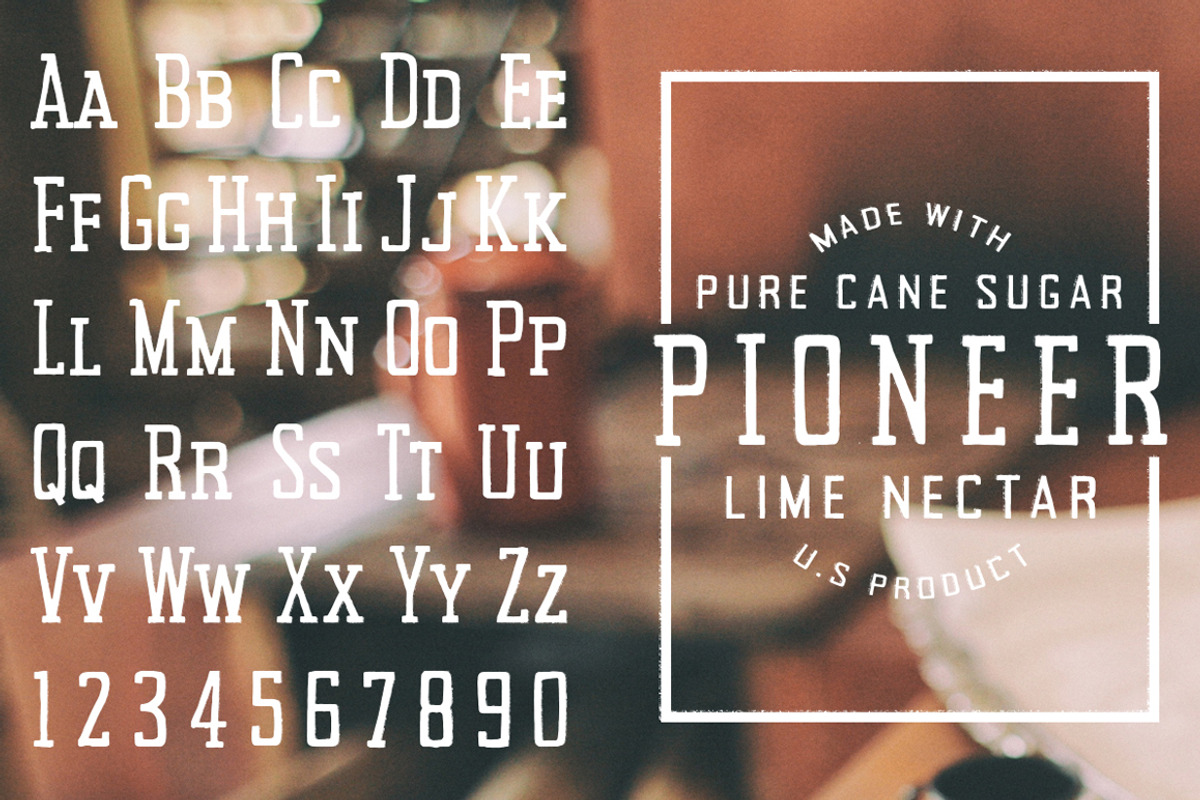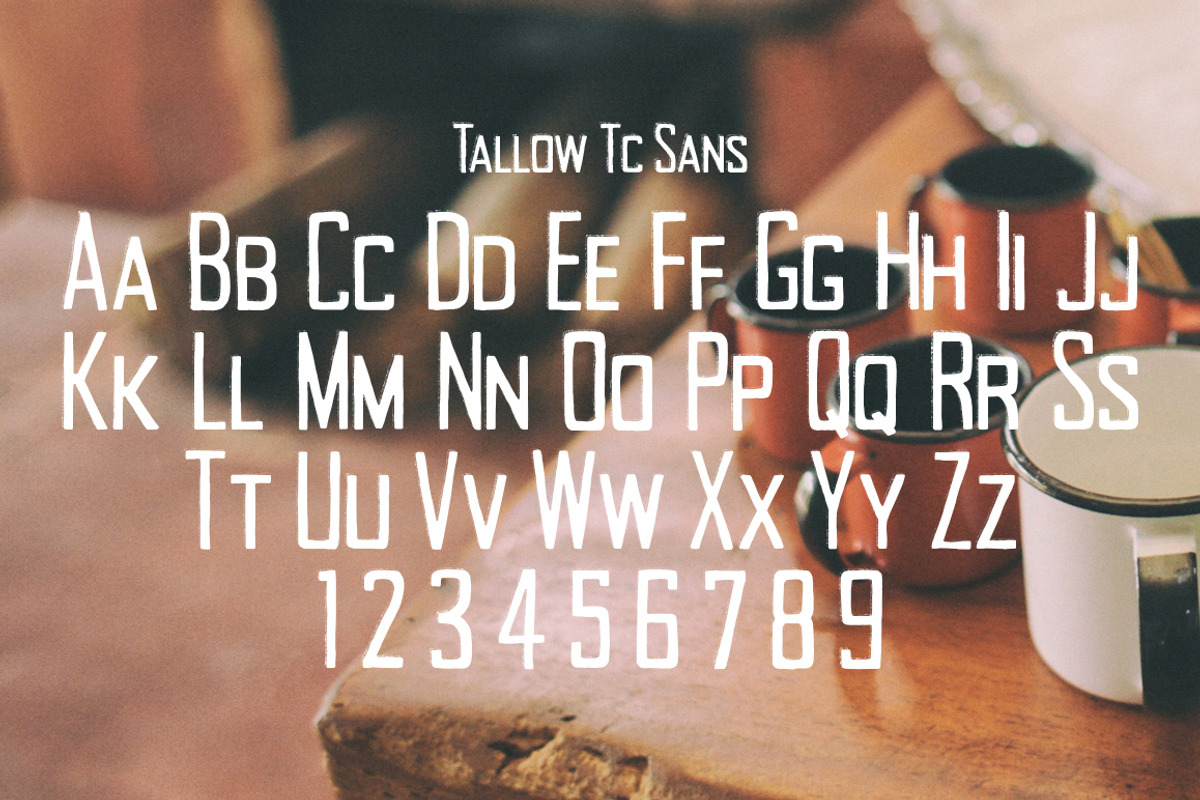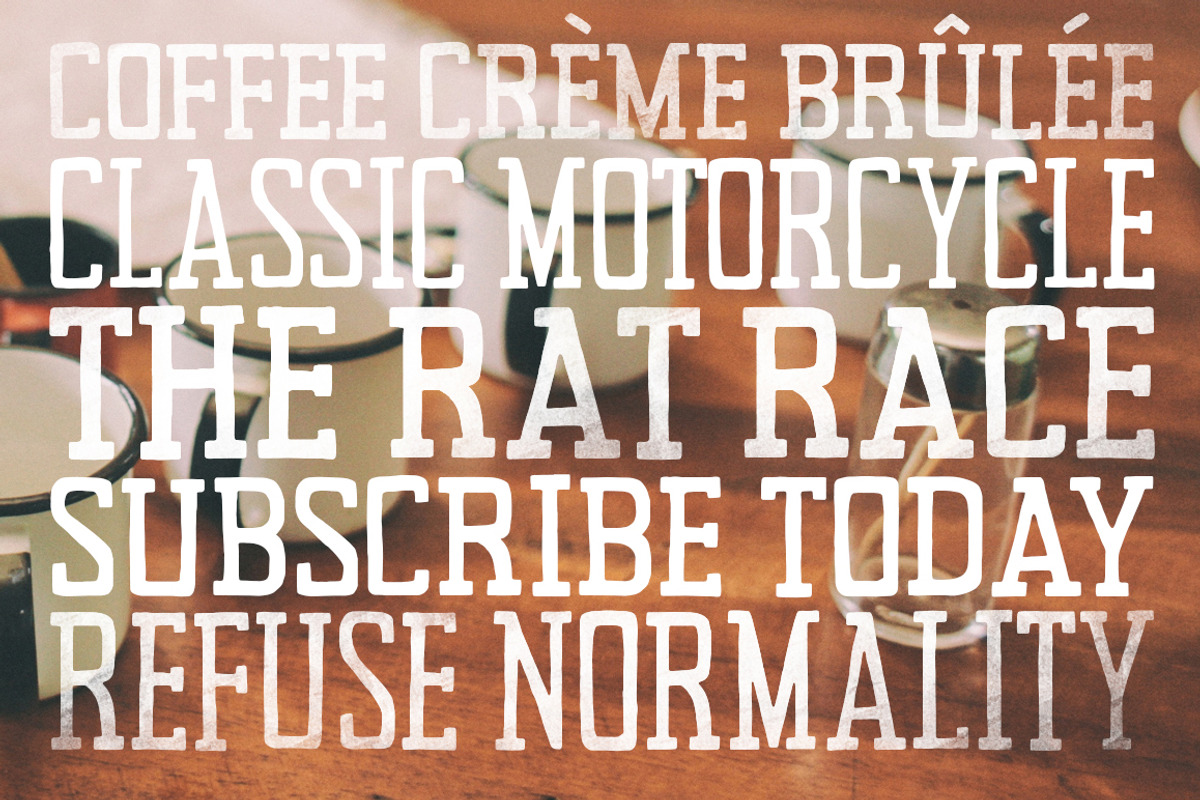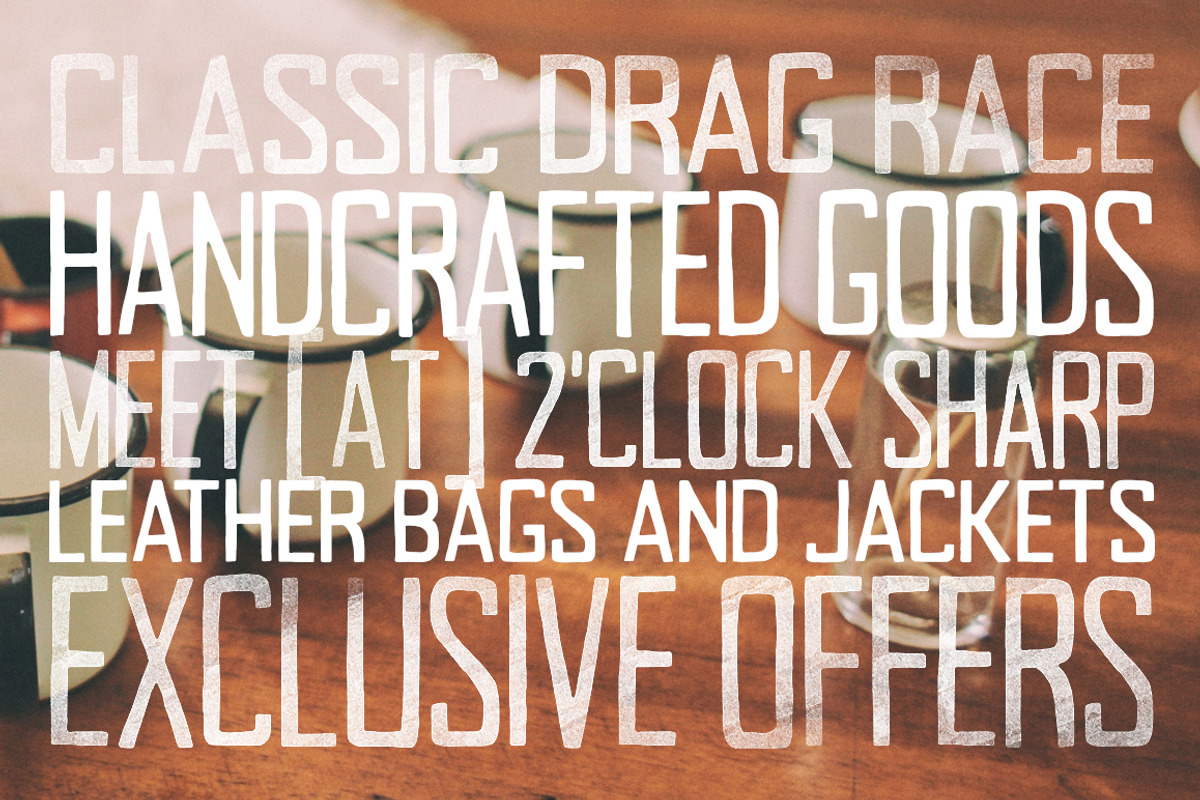
Tallow Font Family (Sans + Serif)
Tallow Font Family (Sans + Serif) by Tom Chalky is a font selected for branding, posters, packaging, typography.
- Introducing the Tallow font family, an uppercase (+ small caps) hand drawn family that can be a great asset in a variety of design scenarios
- Tallow Sans TC Regular
- Tallow TC Regular
Why Tallow Font Family (Sans + Serif) is worth a look
Tallow Font Family (Sans + Serif) by Tom Chalky fits naturally into Branding, posters, packaging, typography.